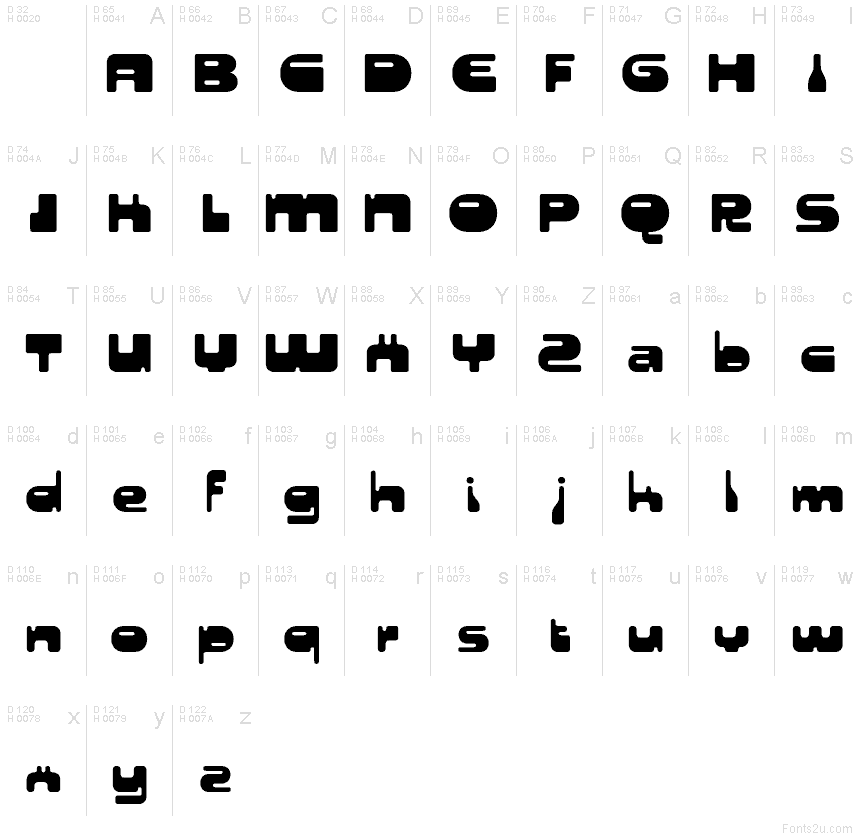
CS Rilke Regular Demo
CS Rilke font by Craft Supply Co. is a free bold retro display font that leans into pillowy, space‑age curves. Its defining move is the way chunky, rounded strokes meet in scooped joints, giving letters a soft, molded‑plastic feel without losing structure. Wide bowls, high counters, and smooth terminals create a steady, upbeat rhythm that reads like vintage futurism—playful yet confident.
Using CS Rilke, headlines snap with presence while staying friendly and tactile. This free font shines on posters, packaging, album covers, event branding, social graphics, and stickers. The generous shapes handle color blocks and gradients beautifully, and a touch of extra tracking at large sizes amplifies the retro air. Pair with a light geometric sans for body copy to keep the groove crisp and readable.